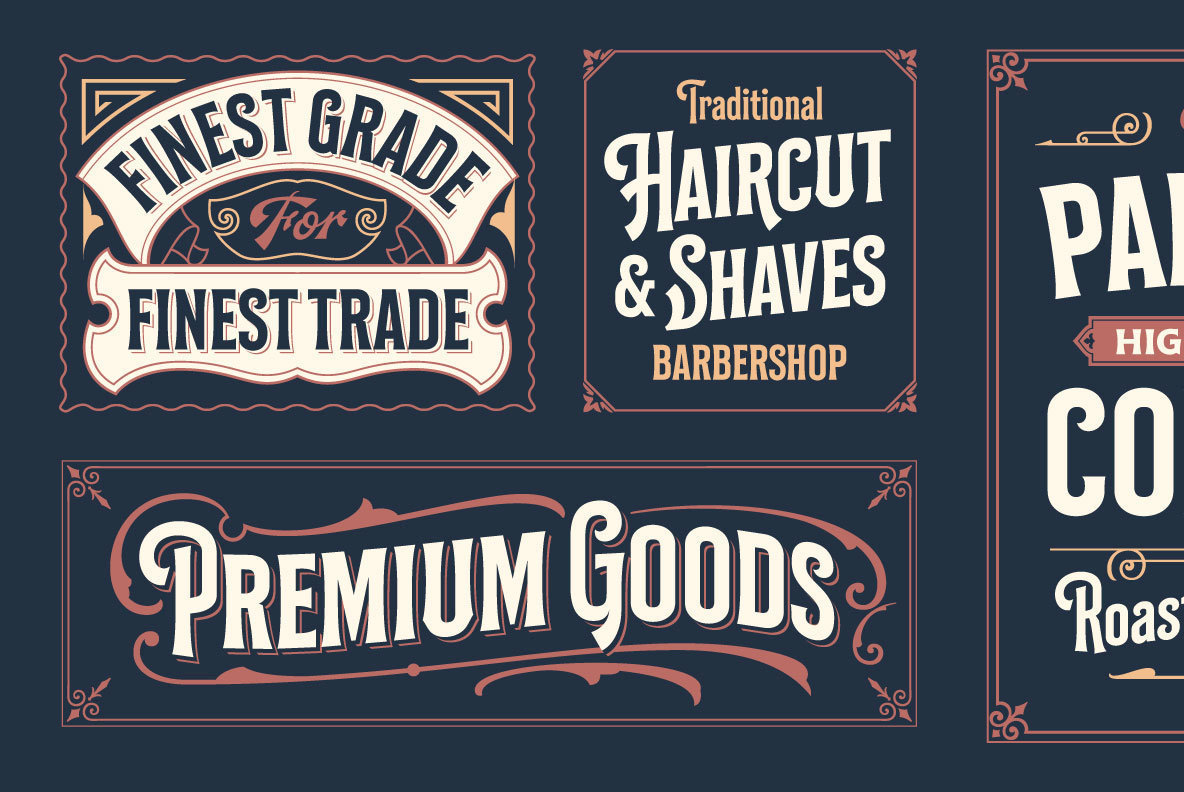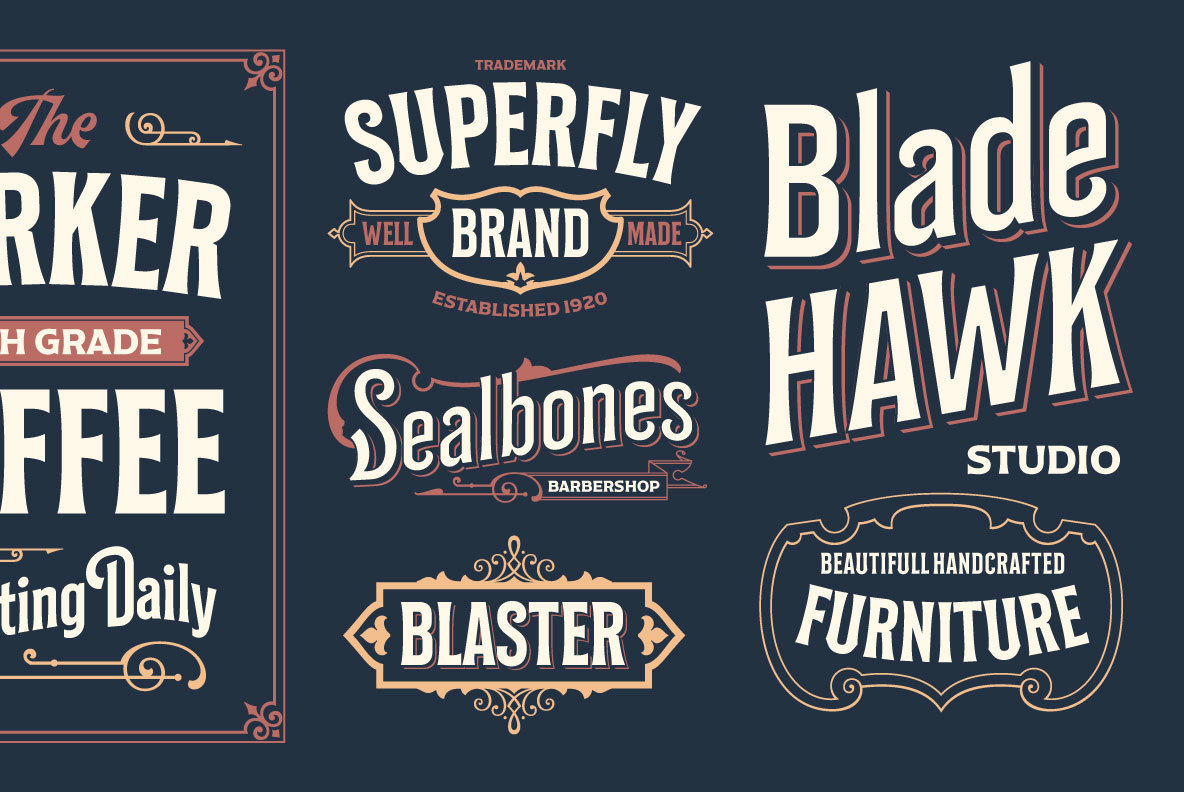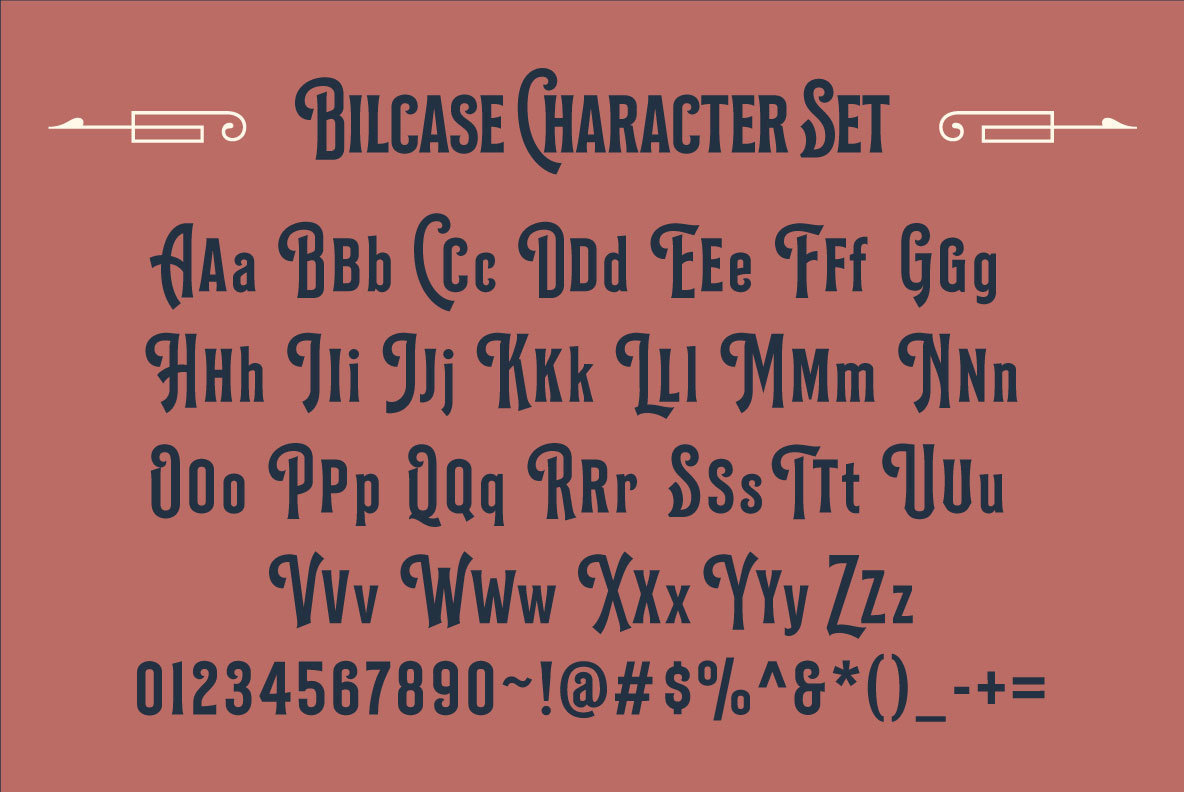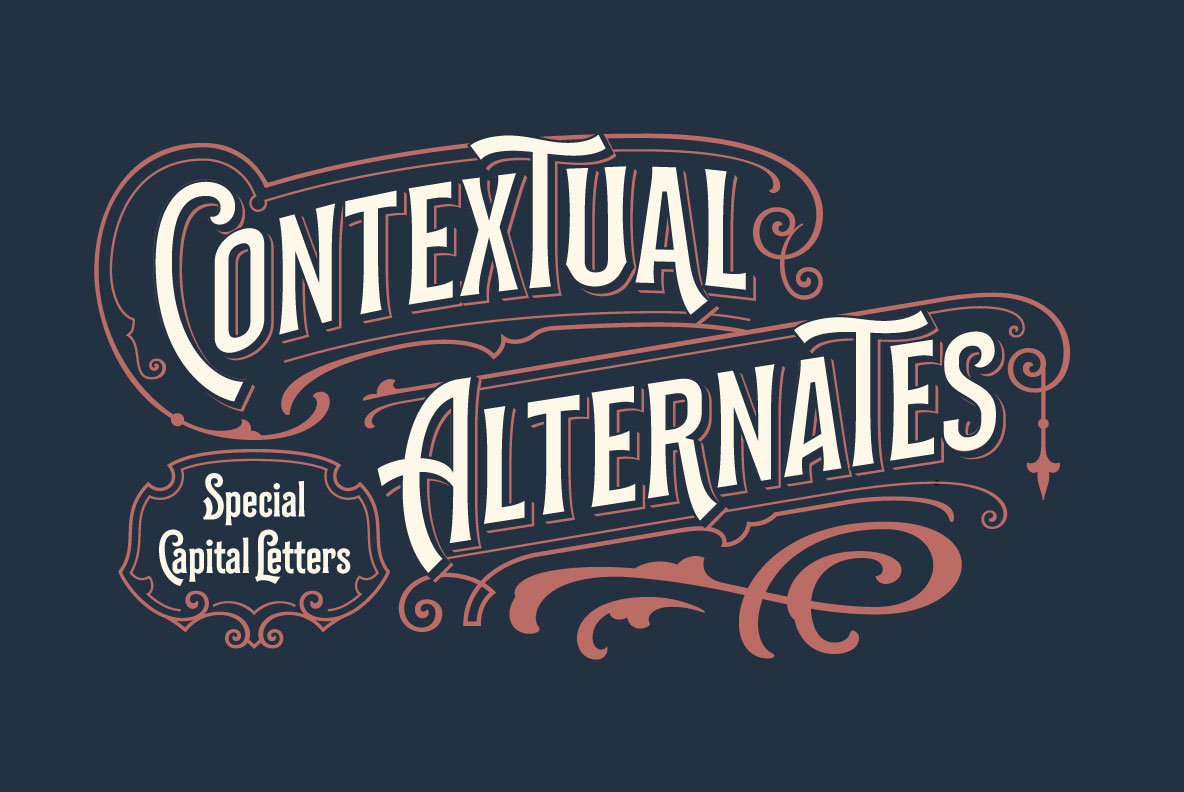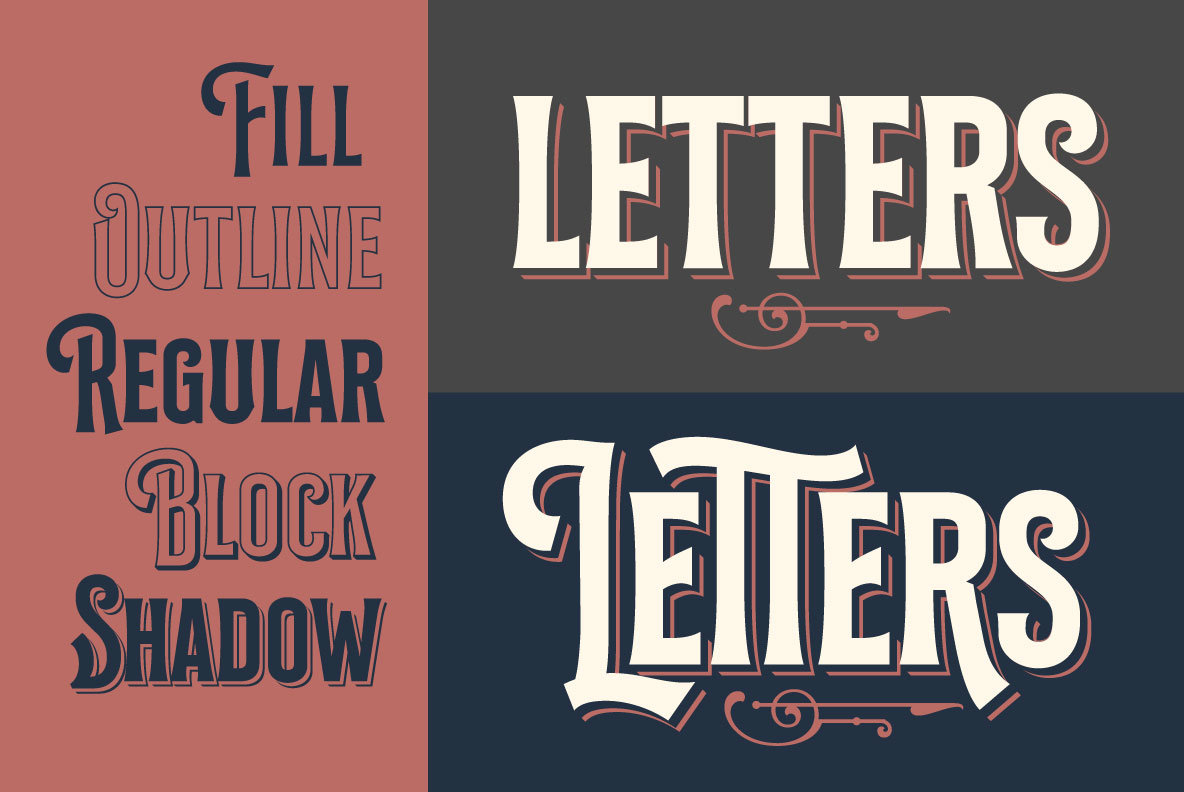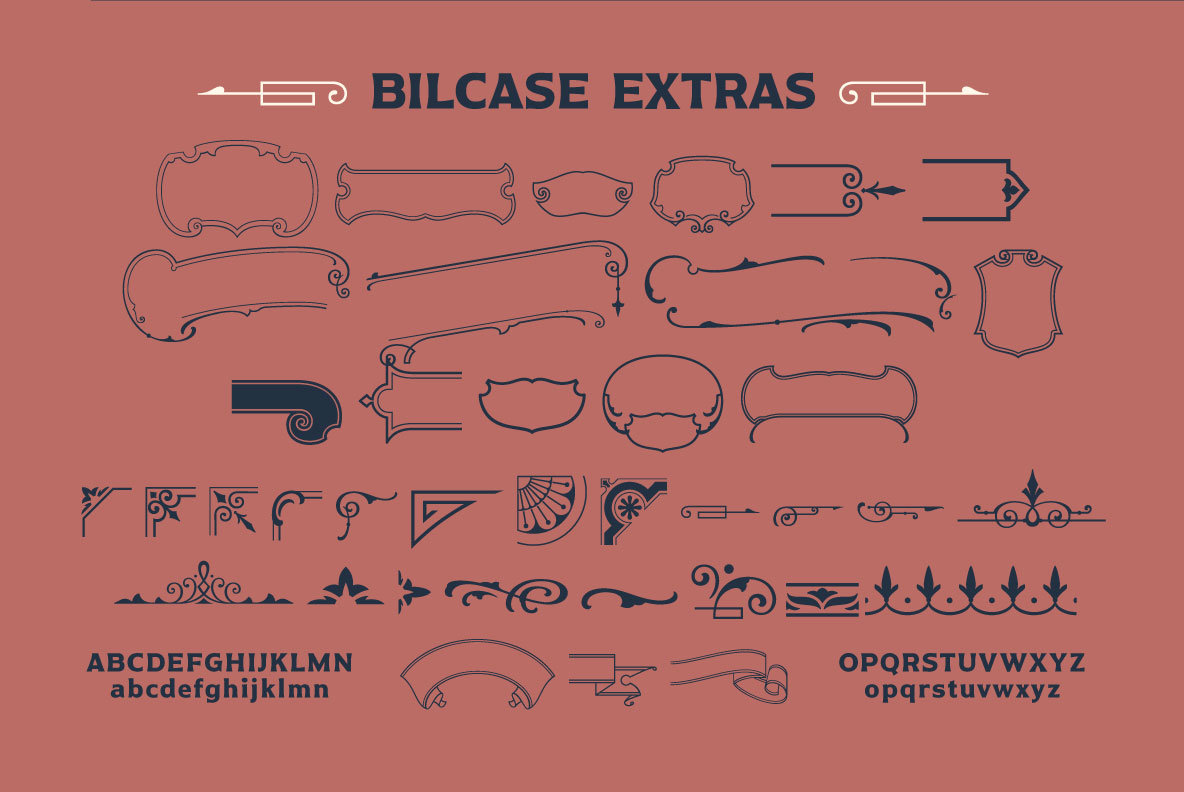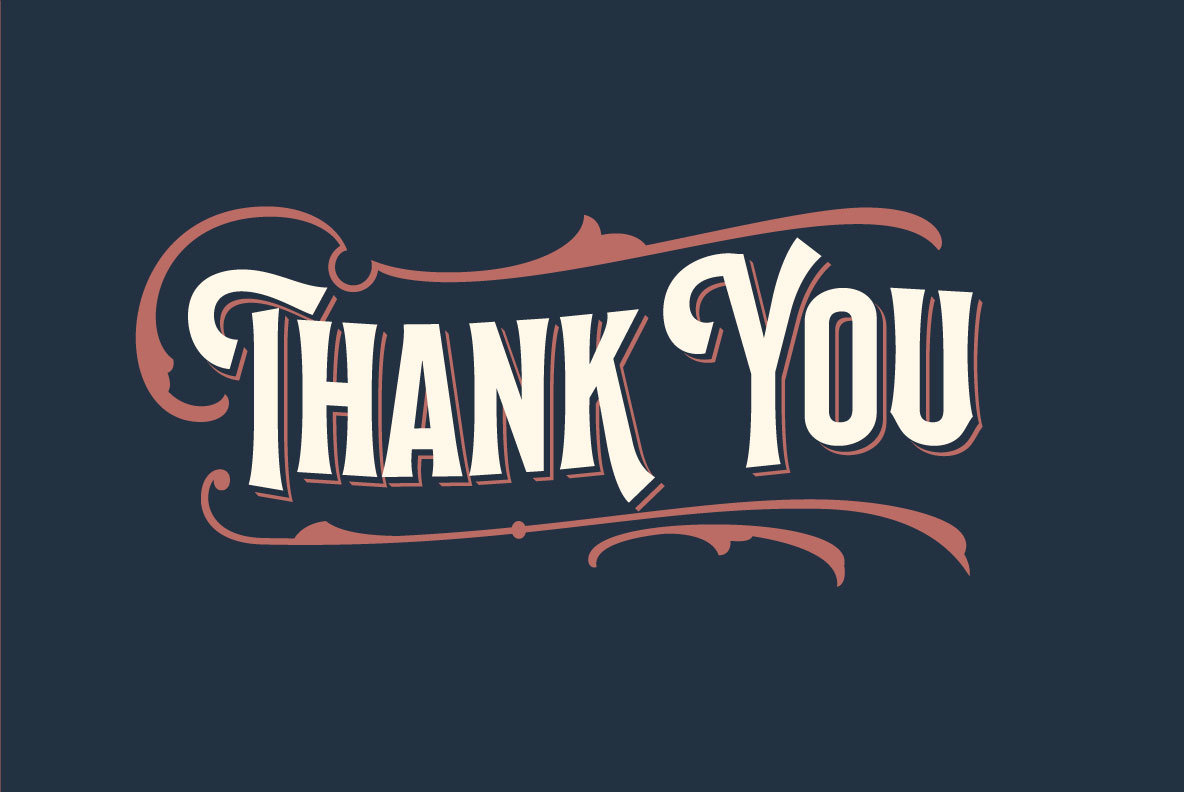
Bilcase Font
Bilcase Regular
Bilcase Extras
Bilcase Block
Bilcase Fill
Bilcase Outline
Bilcase Shadow
Bilcase is a unique condensed font family inspired by the aesthetics of vintage logos, labels, and signage. Its thoughtful design includes five distinctive layers, along with scrolls, panels, and ornamentation, offering countless creative possibilities for label designs, headlines, logotypes, posters, and more. Bilcase offers two styles that cater to distinct design needs. The main fonts are layered, featuring contextual alternates and stylistic options. For a decorative touch, the expanded extras version includes panels, ribbons, and ornaments, activated by specific keys and numbers. This comprehensive suite makes Bilcase a flexible choice for any creator aiming to infuse a vintage flair into their projects.Bilcase: A Versatile Layered Font with Vintage Charm